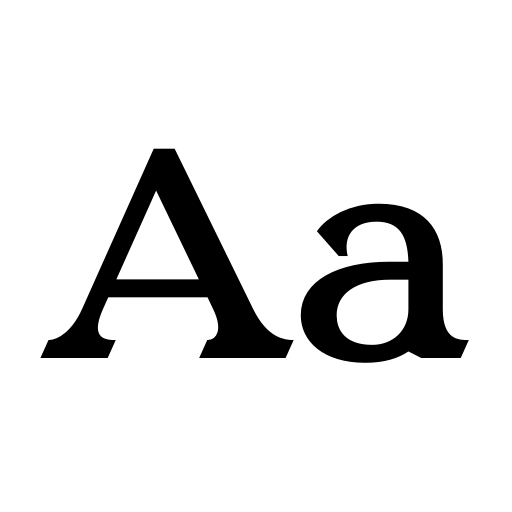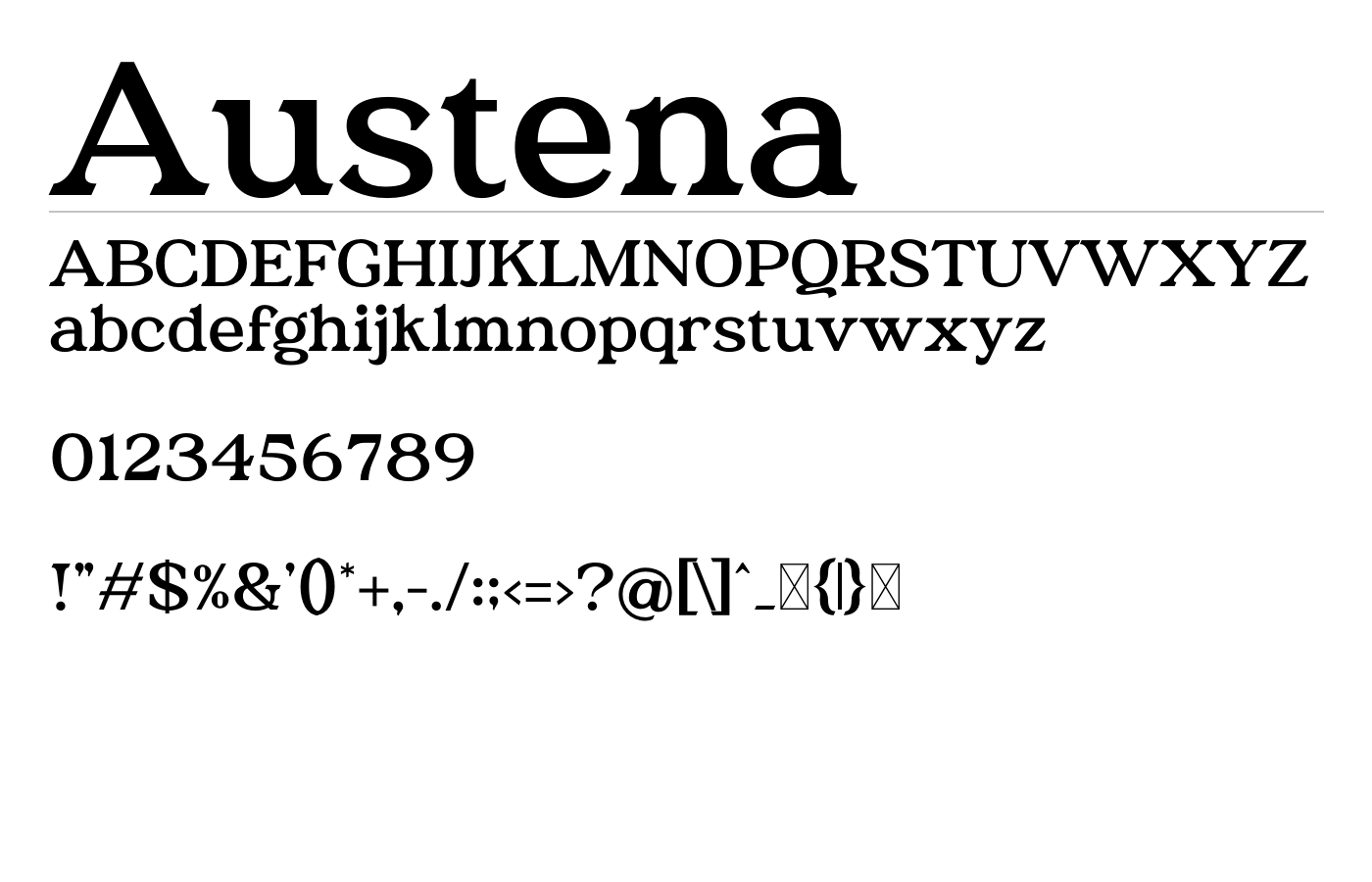
Austena is a classic serif font with a strong, refined presence, featuring medium contrast between thick and thin strokes and bracketed serifs that add a touch of elegance. Its balanced proportions and clear letterforms, including distinctive double-story characters, make it versatile for both headlines and body text in editorial, branding, and luxury contexts. This font conveys timeless sophistication and readability, ideal for projects that need a blend of tradition and modern clarity.
Austena Font